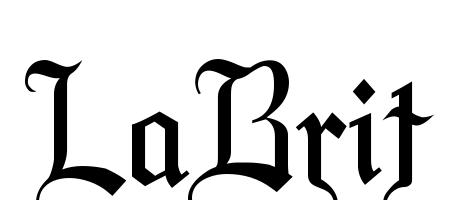
LaBrit
By Apostrophic Labs
LaBrit is a blackletter font, exuding a medieval elegance. Its tall, slender characters feature sharp serifs and dramatic flourishes, hinting at gothic architecture. The "a" is particularly distinctive, possessing a unique upward flourish. Overall, LaBrit conveys a sense of old-world charm and sophisticated mystery.